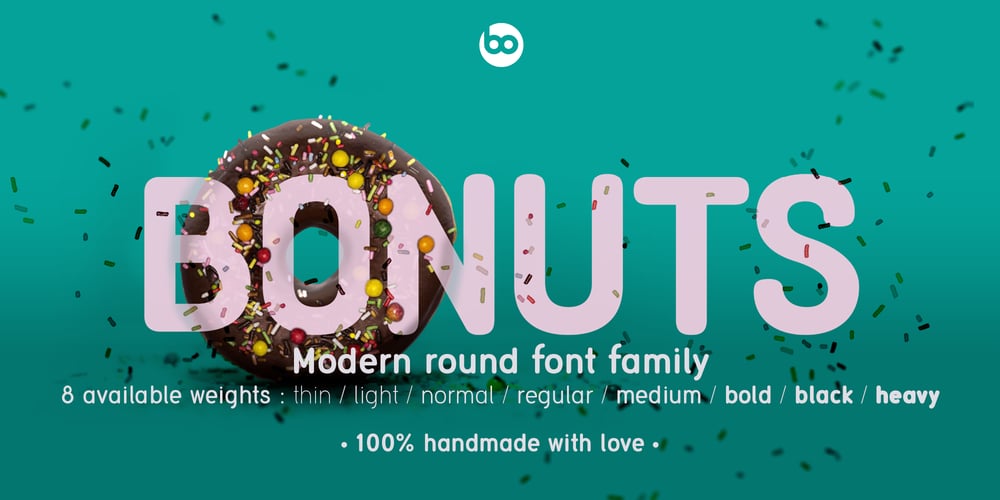
BOnuts Font Family was designed by Pierre-André Borremans and published by BOtype. BOnuts contains 7 styles and family package options. BOnuts is a modern rounded sans built in 8 styles and crafted for you by BOtype.It’s clean and minimal and modern rounded design gives you a wide array of uses such as branding, editorial & print, and also makes it perfect for UI & digital applications. We designed Bonuts to have the most legibility to give you a very versatile font family you use for any use you want.It includes Alternate Characters, Ligatures, Tabular Figures, Fractions, Numerators, Denominators, Superiors and Inferiors. It supports Central and Eastern European languages, basic Cyrillic and Greek. The type family consists of 8 weights (Thin, Light, Normal, Regular, Medium, Bold, Black and Heavy).